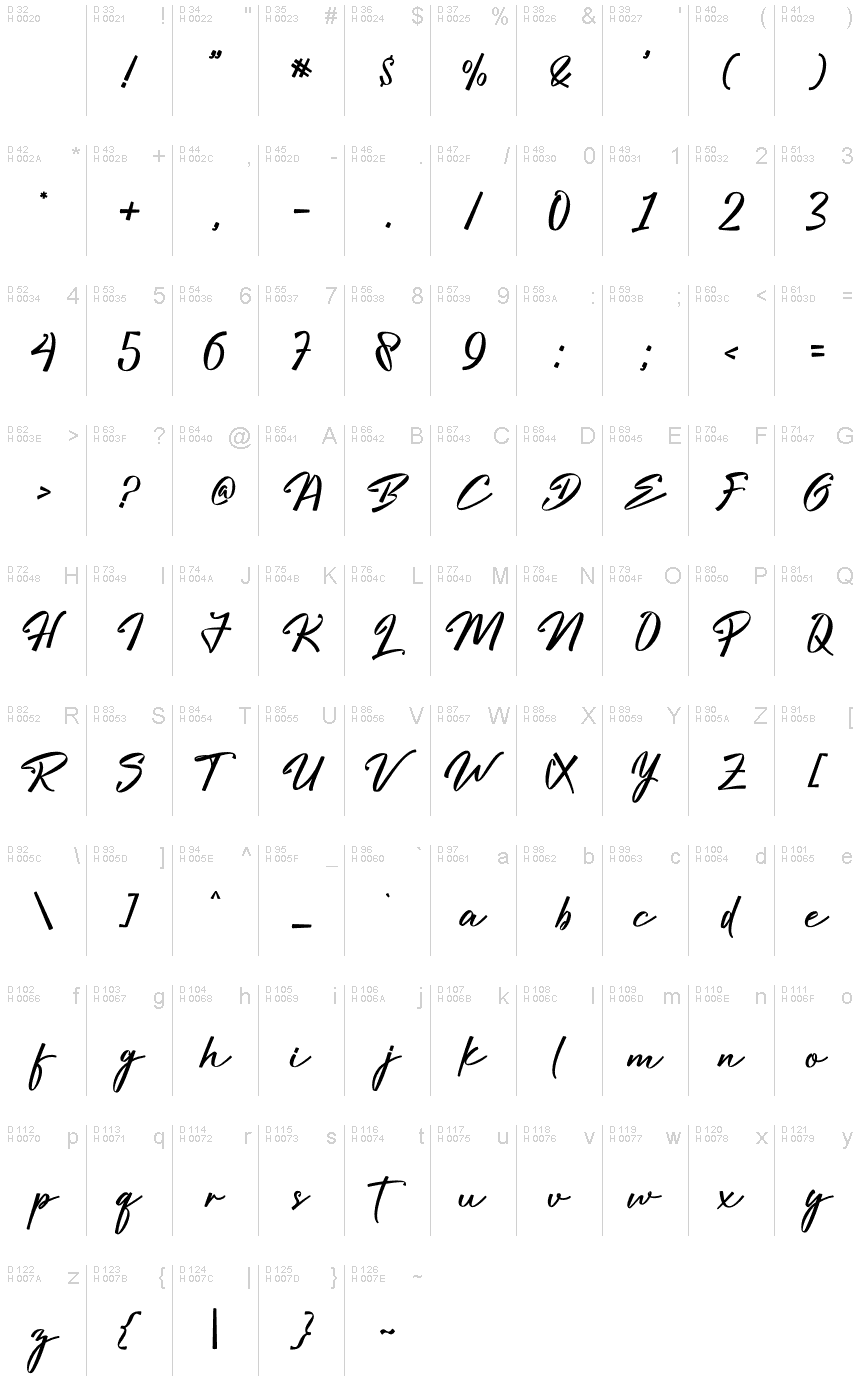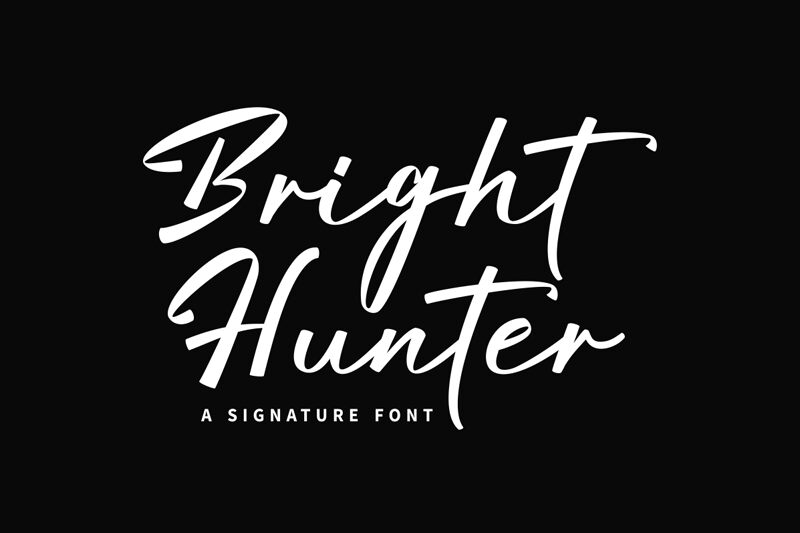
Bright Hunter
Introducing Bright Hunter, the perfect font for adding a personal touch to any project. Designed by Abdul Ghofur, this light-weight, handwritten signature style font will elevate your designs with its unique and playful flair. Use it for invitations, greeting cards, logos or anything that needs a touch of personality. With its elegant curves and smooth lines, Bright Hunter is sure to catch the eye and make a lasting impression. So why settle for boring fonts when you can stand out with Bright Hunter? Get creative and make your projects shine!